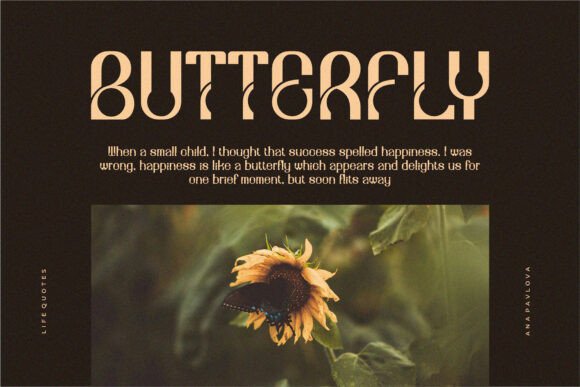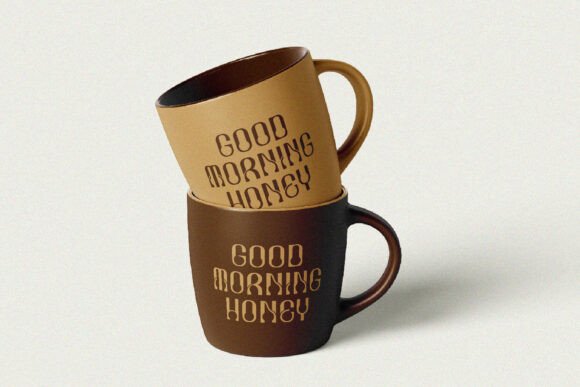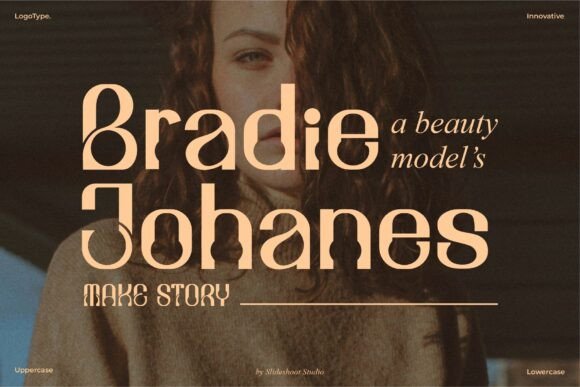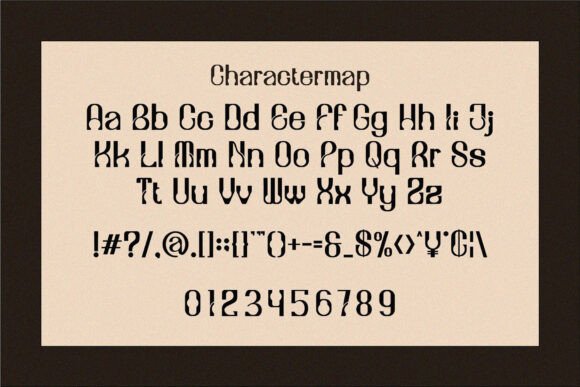
Introduction to Kolasen Rafenya Font
Kolasen Rafenya is an innovative display font with unique curves and elegant lines.
Perfect for luxury branding, headlines, or editorial layouts, this typeface brings a sophisticated and modern edge to any project .
Key Features of Kolasen Rafenya Font
Why Choose Kolasen Rafenya Font?